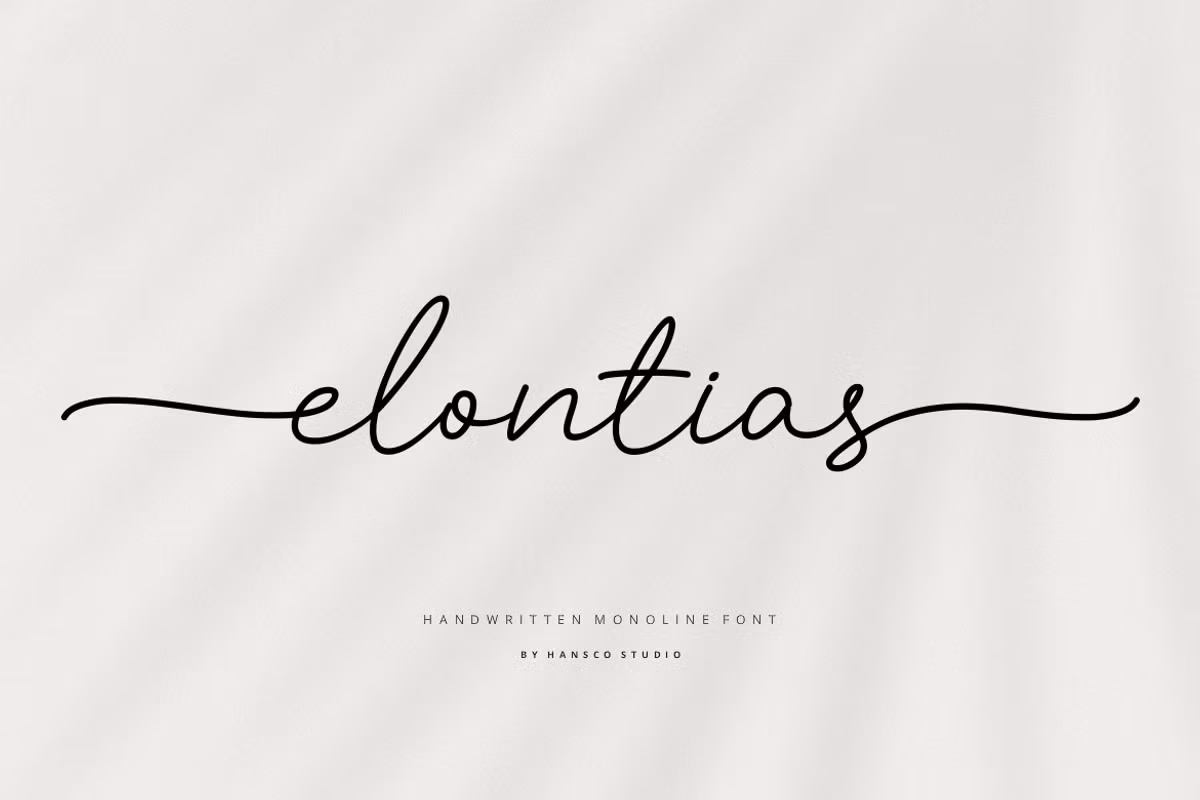
Please note, you must purchase this font for commercial use. However, you can easily download Elontias Font Free Download for personal use and testing purposes. Elontias Font is a sleek and modern typeface designed to bring a bold, sophisticated look to any project. Its clean lines and contemporary style make it ideal for branding, logos, websites, posters, and more. Whether you're working on a professional business venture or a creative personal project, Elontias Font Free Download offers versatility and impact with its distinctive design. Perfect for headlines, titles, and other standout text, this font helps ensure your message is delivered with style. Explore the potential of Elontias Font Free Download today and elevate your design projects before committing to a commercial license.